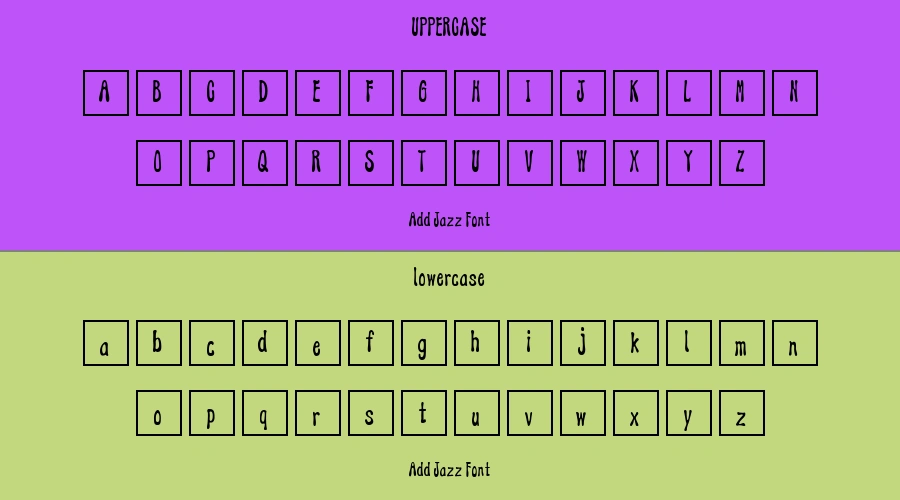
About Add Jazz Font
Designed with precision, Add Jazz Font merges unique personality with classic beauty in every character. This versatility makes it particularly effective for presentation decks, where authenticity and professional authority directly impact communication quality. Each letterform demonstrates meticulous craftsmanship.
Technical excellence shines through elements like bold expressions and dingbat elements, enhancing typographic versatility. In academic theses settings, Add Jazz Font proves its worth through superior file optimization. The thoughtful execution of serif length and design heritage ensures professional results.